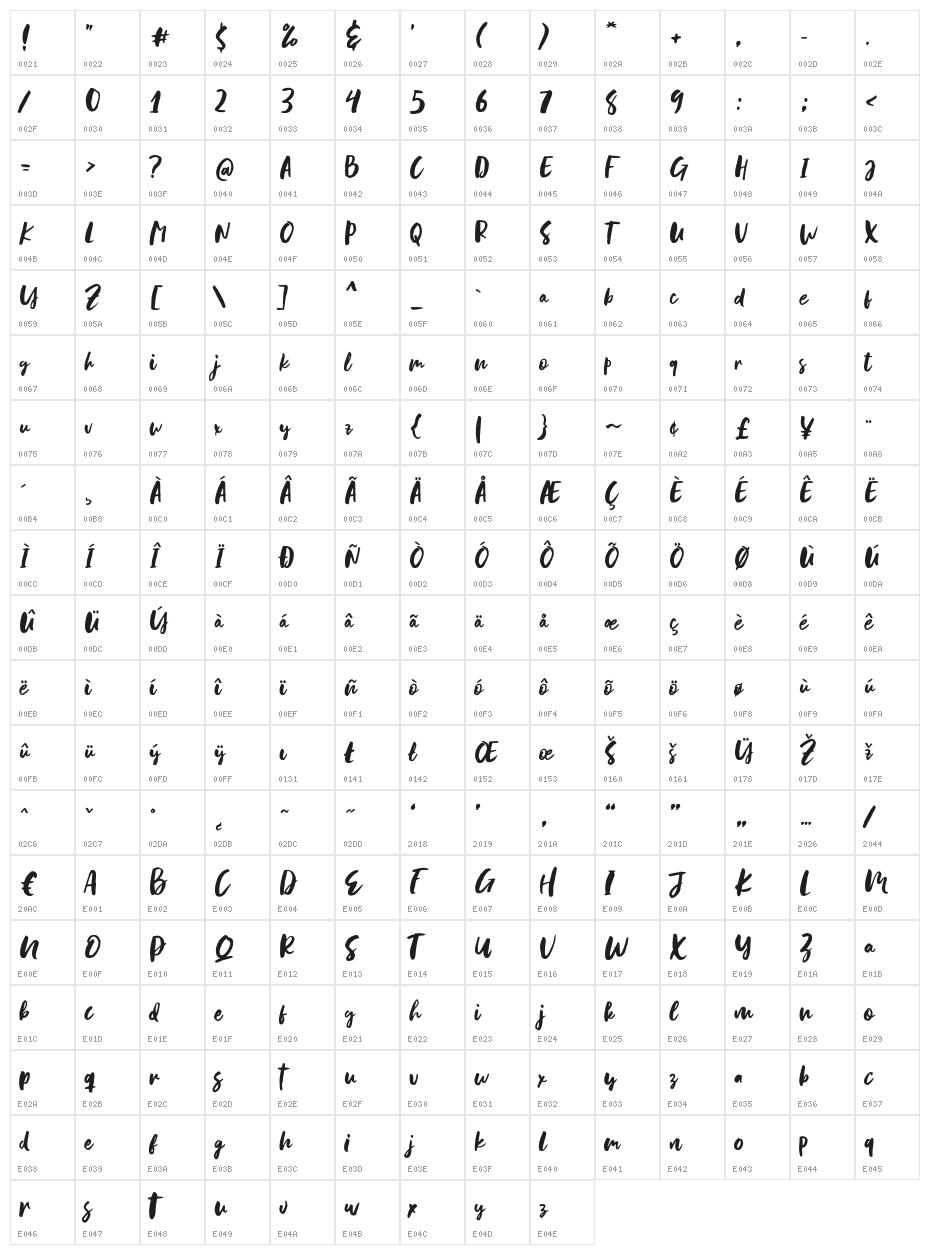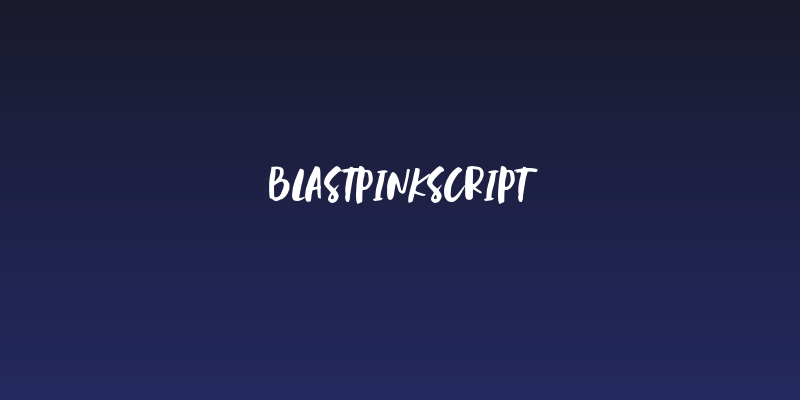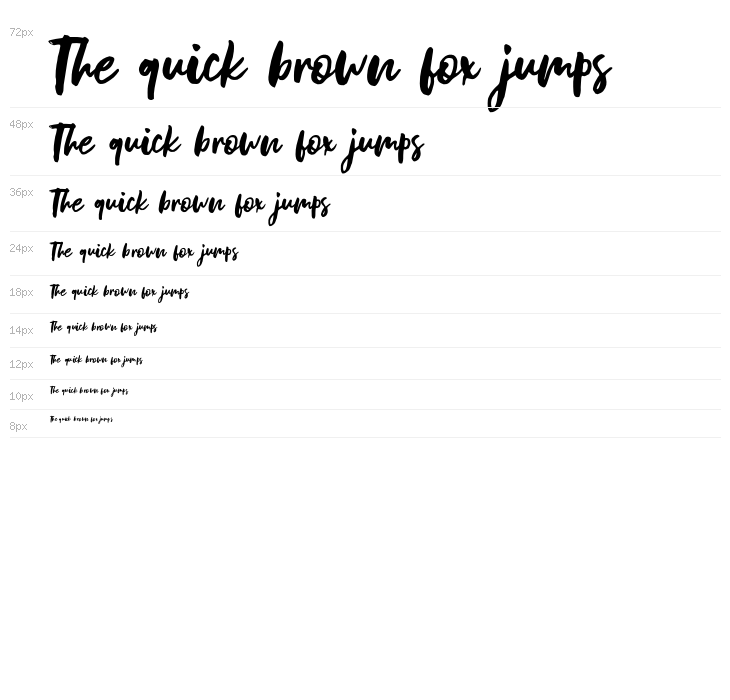
BlastpinkScript Font
| Anwendungsfall | Logos, Headlines, Posters |
| Vorgeschlagene Projekte | Ideal for branding, posters, invitations, and social media graphics where a personal and artistic touch is desired. |